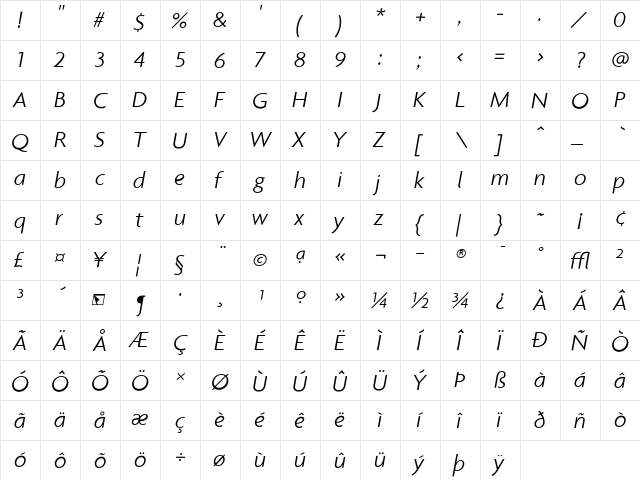
Agenda Italic
Design Context for Agenda Typeface
Agenda takes a measured approach to typography — its balanced proportions and neutral character make it a reliable workhorse for both digital and print work. The slanted form adds forward momentum and visual energy.
Pro Tip: Try Agenda for annotation and caption copy alongside an upright companion — the contrast in angle creates a dynamic but ordered typographic system.